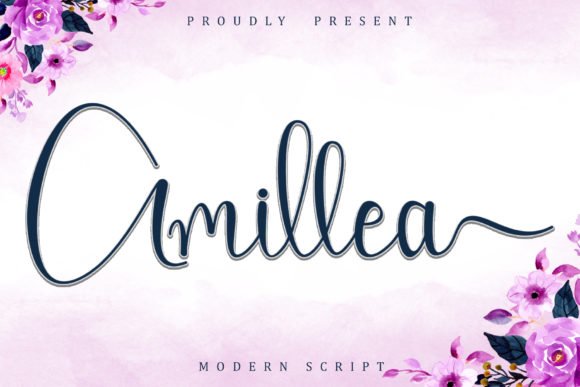
Unlocking the Art of Handwritten Beauty
There’s something magical about the moment when a design idea clicks – the spark of creativity that ignites a passion project, the rush of excitement that comes with bringing a new concept to life. For designers, these moments are what drive us to push the boundaries of what’s possible and create something truly unique. And it’s exactly these moments that inspired the creation of Amillea Font – a modern and calligraphy handwritten font that’s poised to take your designs to the next level.
With its gorgeous swashes and ligatures, Amillea Font is the perfect tool for adding a touch of elegance and sophistication to your designs. From elegant wedding invitations to beautiful branding materials, this font is sure to impress. And with its PUA encoding, accessing all the cute glyphs and swashes is a breeze. Whether you’re a seasoned designer or just starting out, Amillea Font is a valuable addition to your toolkit – one that will help you create stunning, one-of-a-kind designs that truly stand out.
Amillea Font Key Features
- Unique Characteristics: Amillea Font features a unique blend of modern and vintage elements, with intricate details and ornate flourishes, making it perfect for luxury, high-end, or sophisticated designs.
Amillea Font Review
Overall, I’m quite impressed with the Amillea Font. It’s a beautiful, elegant script font that’s perfect for adding a touch of sophistication to your designs.
- ✨ Beautiful calligraphy-style strokes that add a sense of luxury to your designs.
- ✨ Highly customizable, with a wide range of weights and styles to choose from.
- ⚠️ Limited support for non-Latin languages, which may be a problem for designers working with international clients.
- ⚠️ Not as suitable for bold, attention-grabbing headlines – the font is more suited to body text and smaller headings.
Overall, I’d say the Amillea Font is a solid choice for designers looking to add a touch of elegance to their projects. While it may have some limitations, its beauty and customization options make it well worth considering.
Getting the Most Out of Amillea Font
For optimal results, use Amillea Font in conjunction with a clean and modern design aesthetic. Experiment with different font sizes and colors to create visual interest. Avoid using Amillea Font for large blocks of text, instead use it for headings and titles.
Amillea Font is ideal for use in branding, marketing materials, and digital designs. It’s particularly well-suited for creating a modern and sophisticated look. Use it for headings, titles, and short paragraphs to add a touch of elegance to your designs.